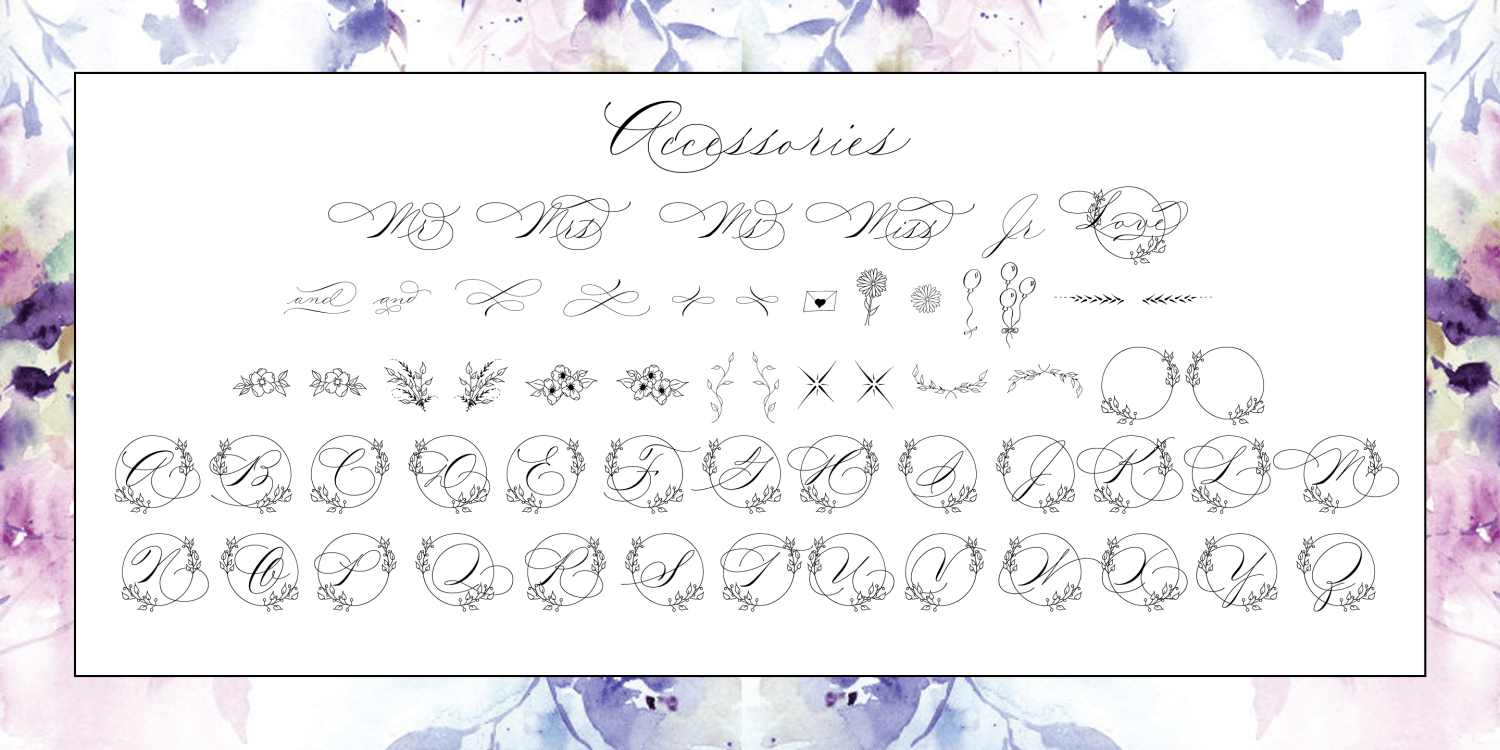
Madison Street Ornaments
Madison Street Ornaments was created as a companion for any of the other the Madison Street script fonts. In addition to the floral and decorative fleurons, the Ornaments font also contains pre-composed salutations, Mr, Mrs, Ms, and Miss, Jr, and a couple of swash "and". There is also a set of single letter monograms, A-Z, within a decorative frame. All of the ornaments are weighted to work perfectly with the Madison Street script fonts, and can be combined to create distinctive placecards, invitations, and much more! The font package contains a Character Map so finding the ornaments is easy.